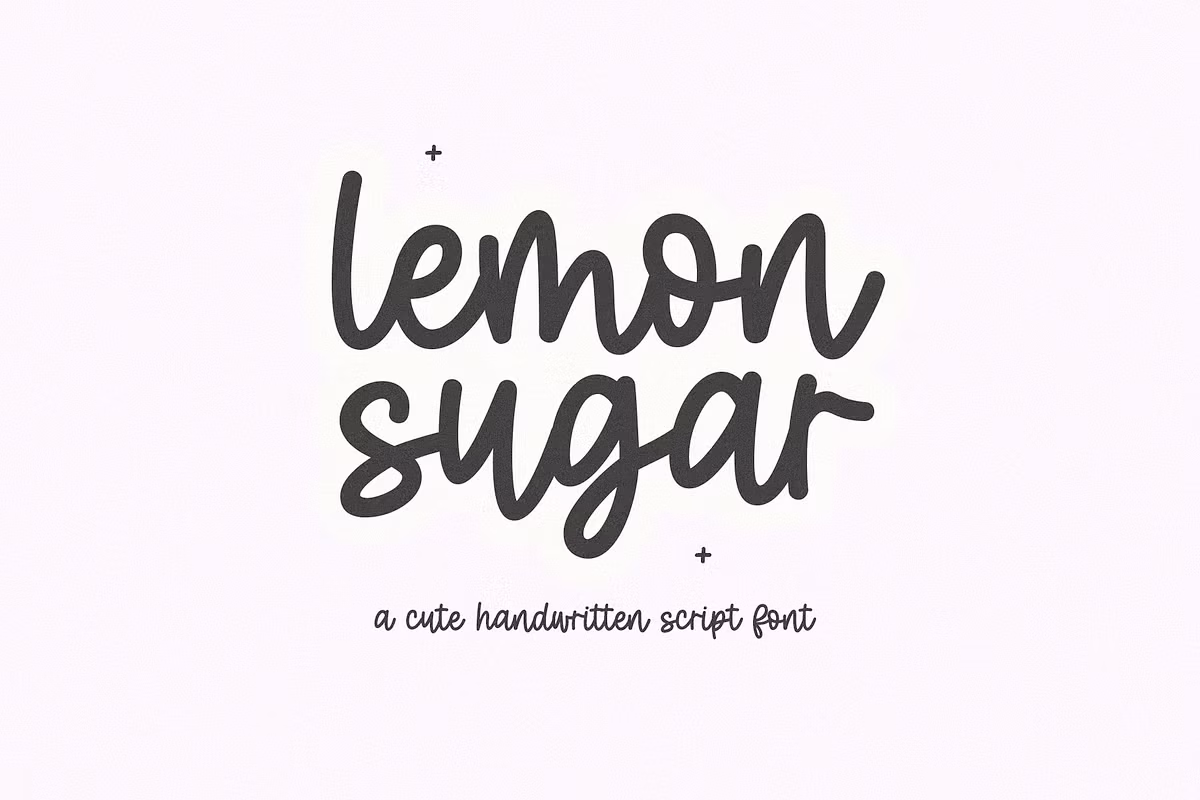
Lemon Sugar | Cute Script Font Free Download
Lemon Sugar | Cute Script Font Free Download is a sweet and playful handwritten typeface full of charm and bubbly personality. With its smooth, flowing curves and delightful details, Lemon Sugar is perfect for kids' designs, greeting cards, planner pages, product packaging, Instagram quotes, and all things cute and cheerful.
The font’s whimsical letterforms give your designs a joyful and friendly tone, making it an excellent choice for creative projects that aim to feel warm, approachable, and fun.